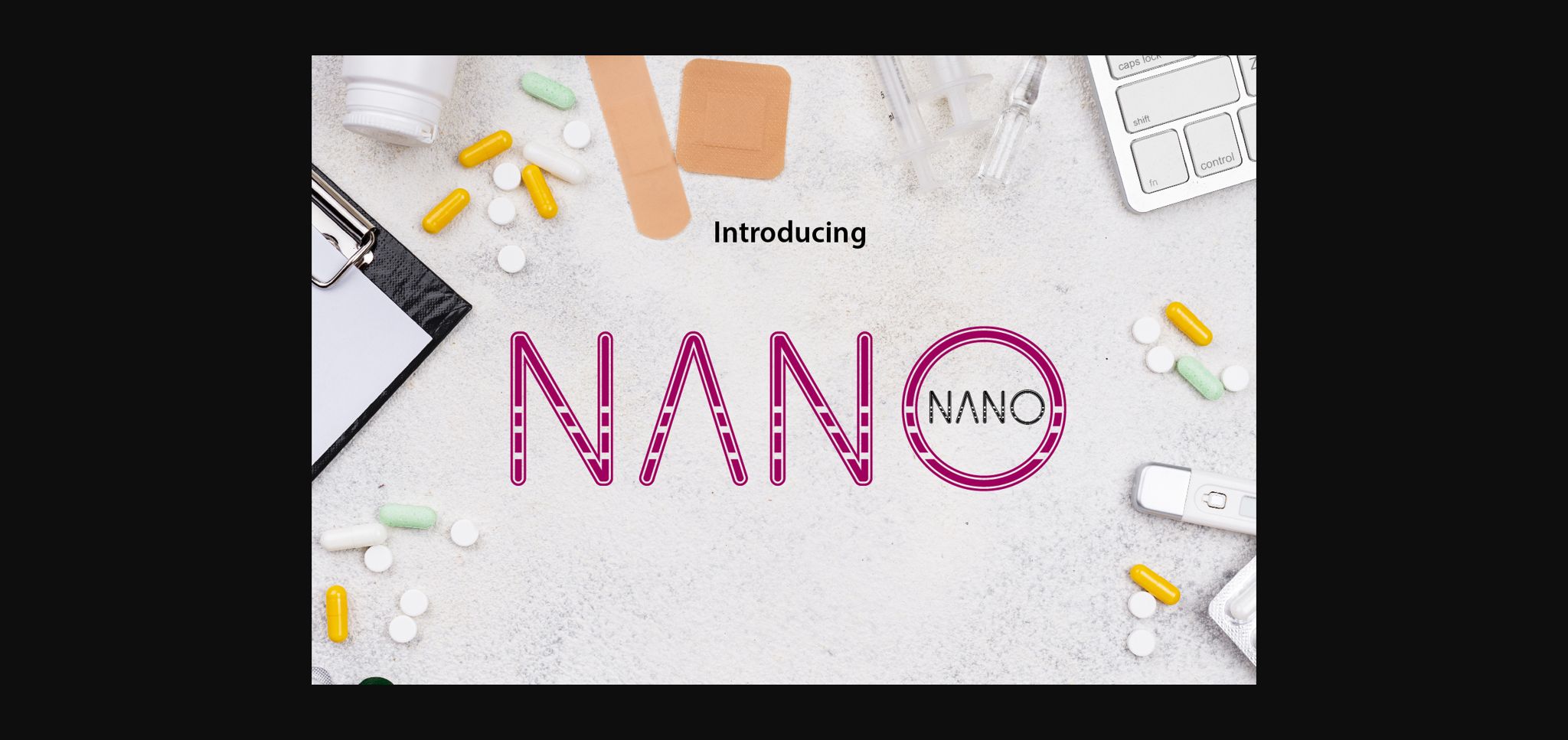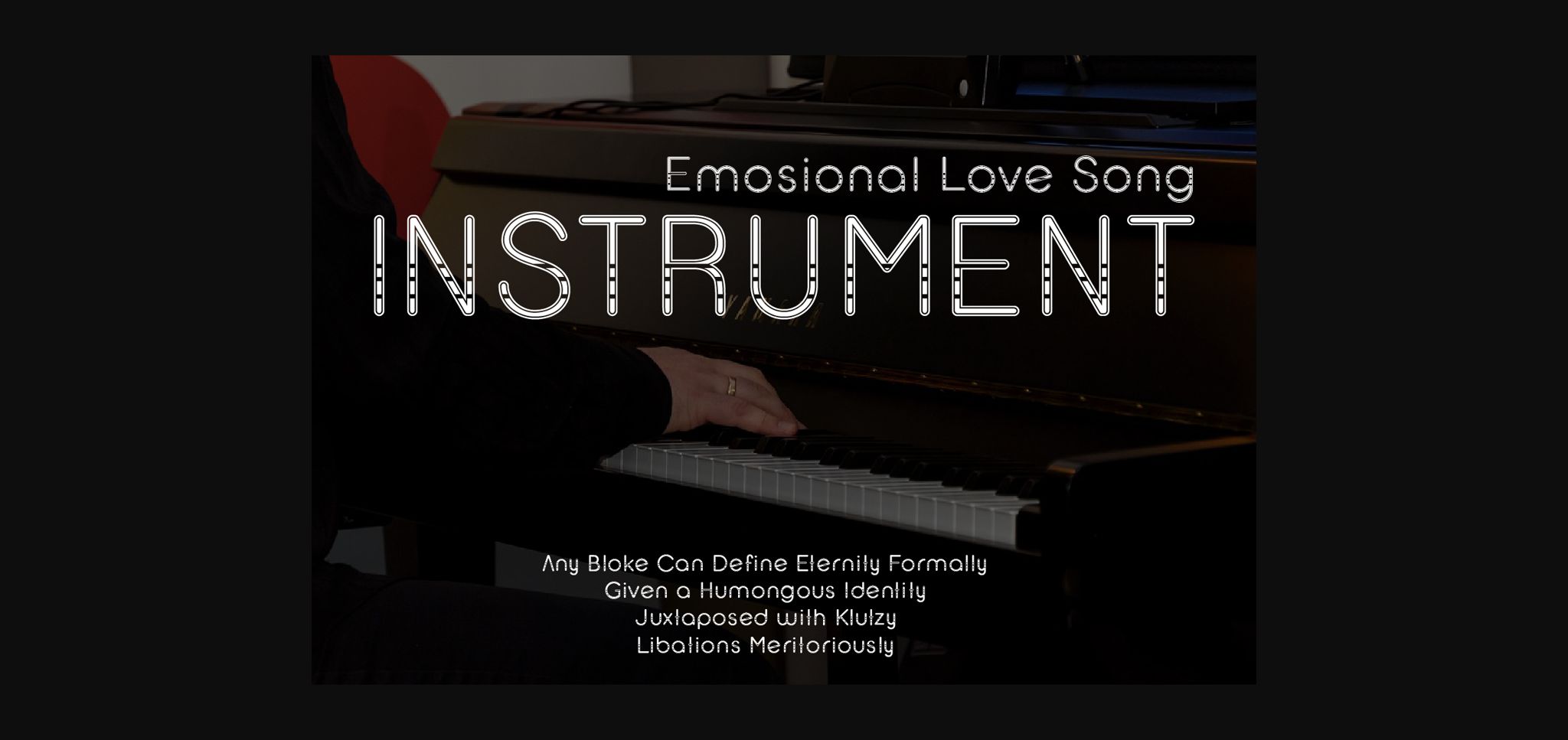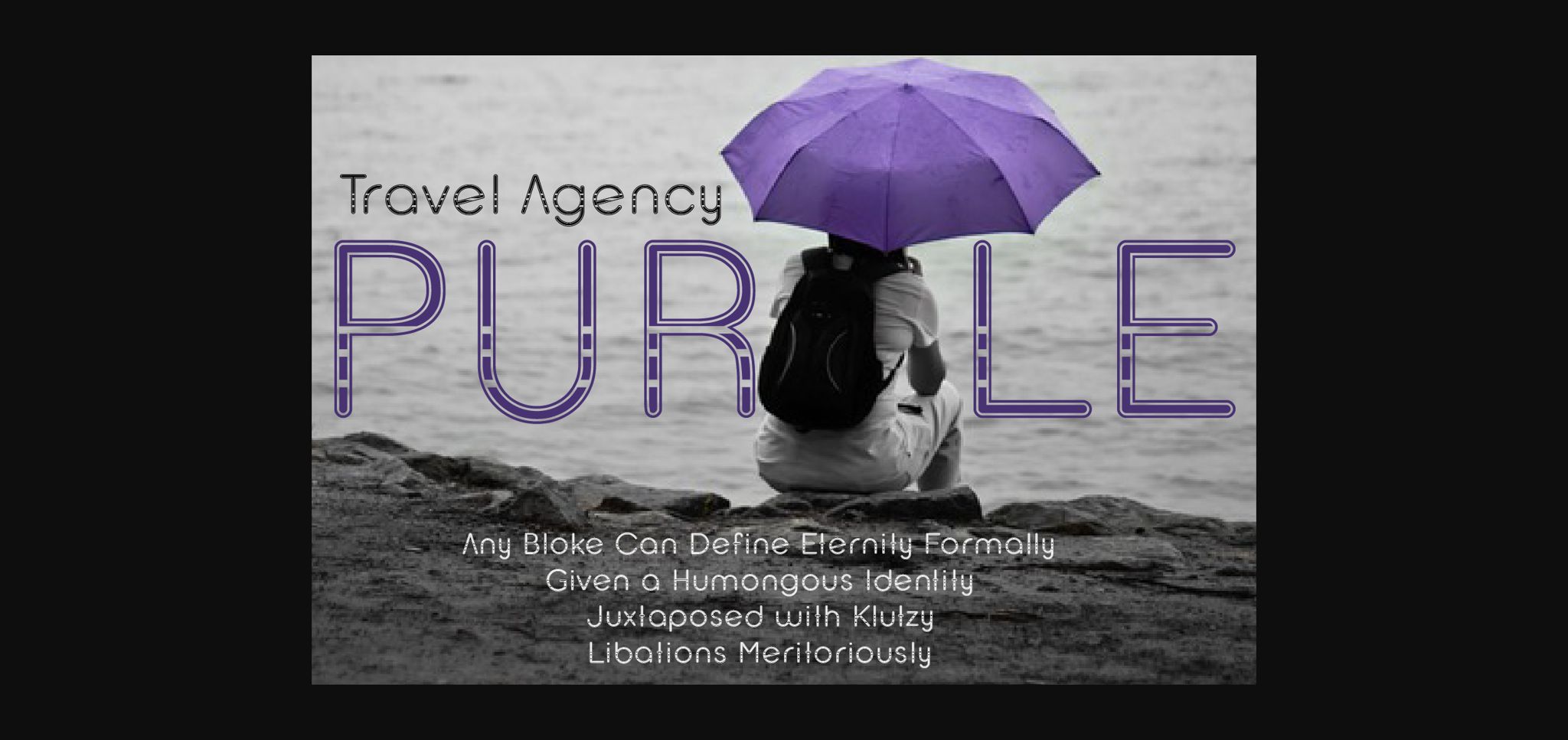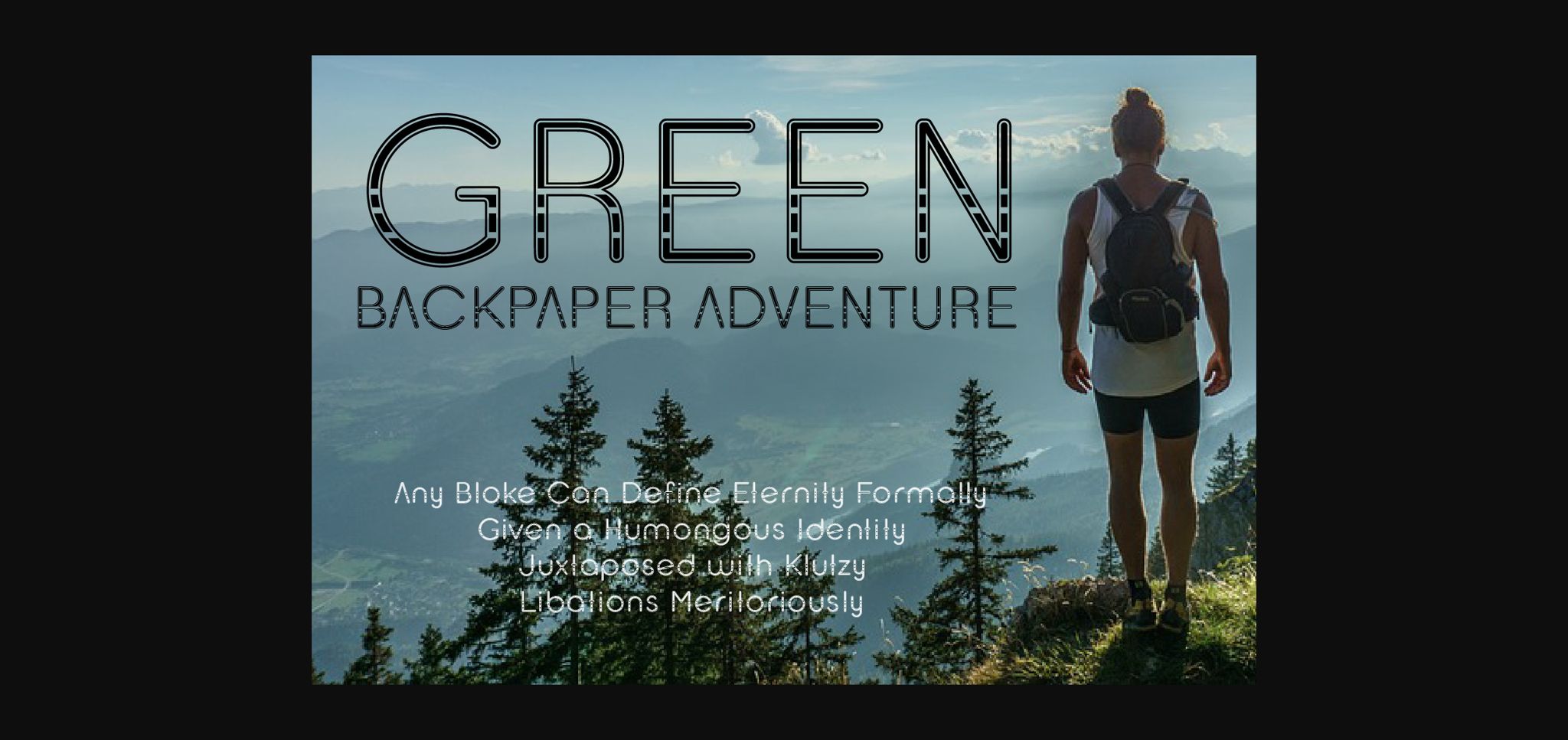
About Nano-Nano Font
Nano-Nano is a simple and neat sans serif font. It can easily be matched to an incredibly large set of projects, so add it to your creative ideas and notice how it makes them stand out!